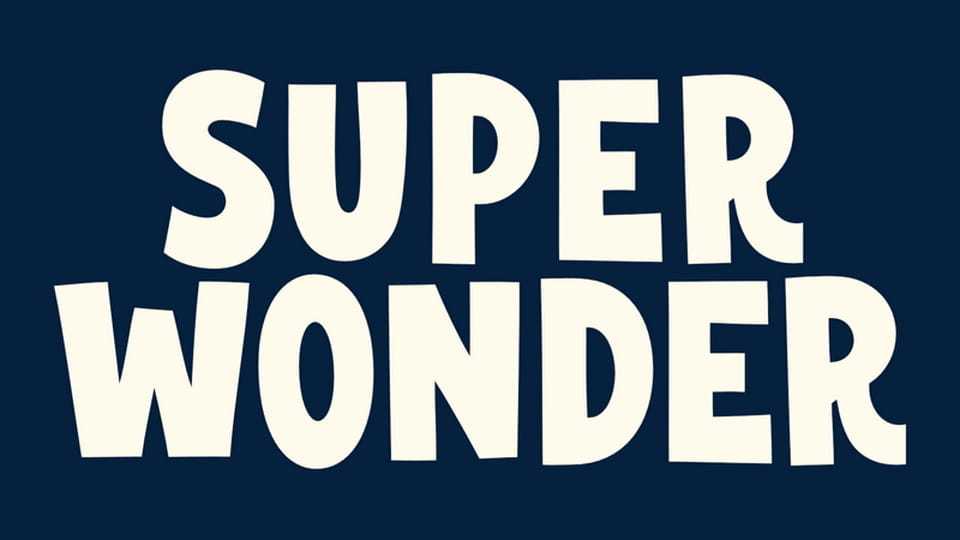
Download Super Wonder font, a bold display typeface with a playful and slightly irregular character. Its dynamic shapes and subtle distortions create a sense of movement and personality, making it perfect for creative and expressive designs.